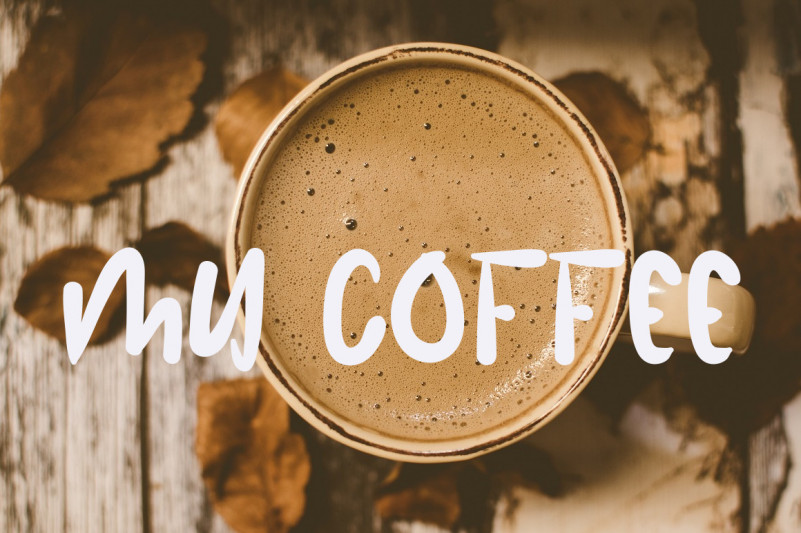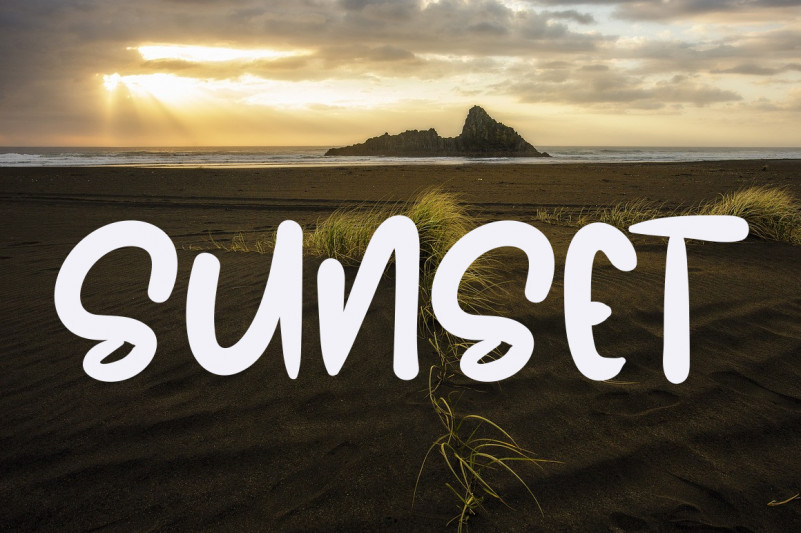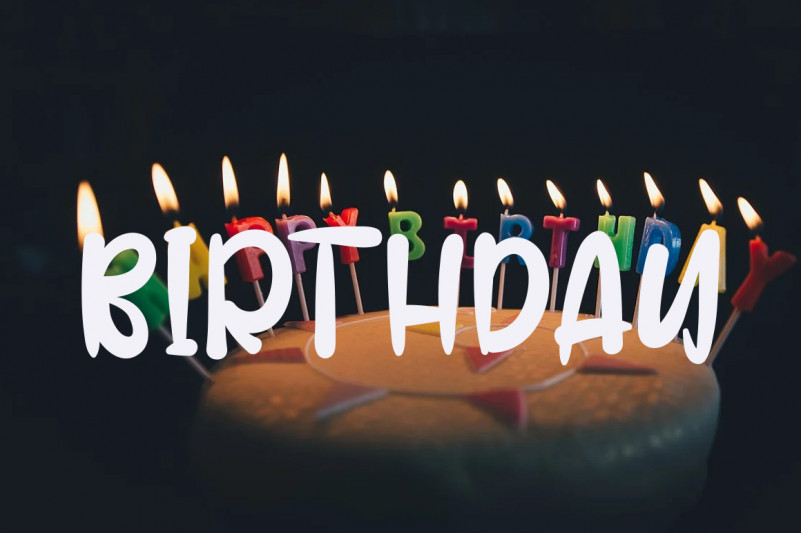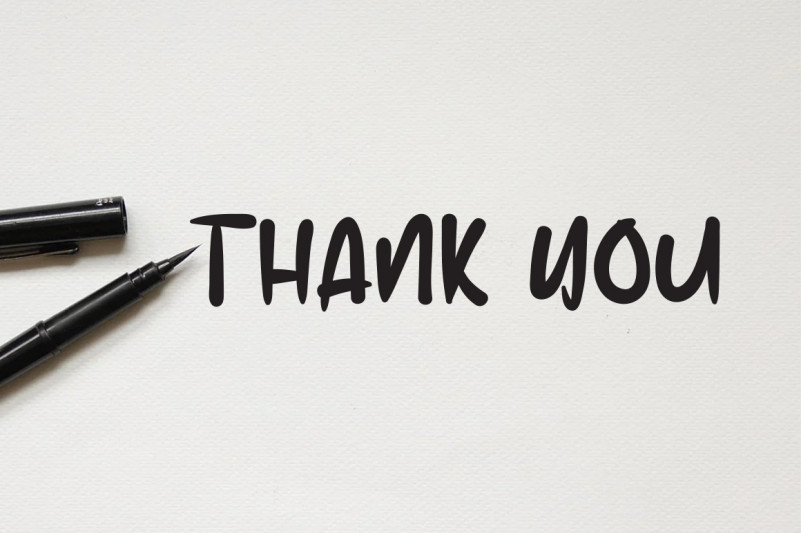
Honey Latte Display Font
This is a dainty, genuine and friendly handwritten font. This gentle font will look gorgeous on a variety of design ideas. It will add a joyful and romantic touch to each of your projects!